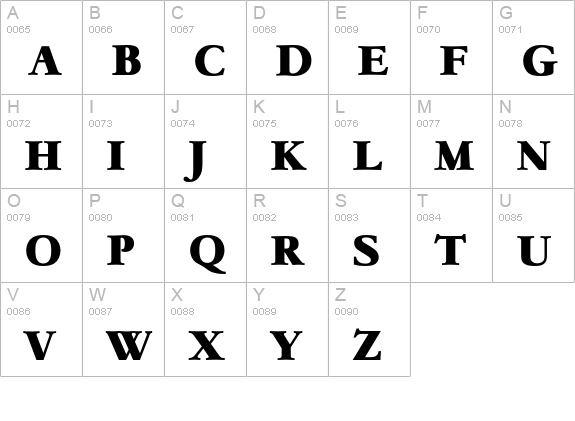
Garemond-Heavy is a heavy, high-impact variant in the Garemond typeface family \xE2\x80\x94 well suited to high-impact headlines, posters, and display advertising.
Garemond-Heavy font exudes a bold and commanding presence, making it perfect for headlines, titles, and other attention-grabbing text. Its strong, thick lines provide a sense of stability and authority, while its elegant curves add a touch of sophistication. This versatile typeface is sure to make a statement in any design project. And the best part? Garemond-Heavy font is absolutely free to download at FontsMarket.com! Now you can enjoy the striking beauty and versatility of this font without having to break the bank. Don't miss out on this incredible opportunity to enhance your designs with Garemond-Heavy - download it for free today!